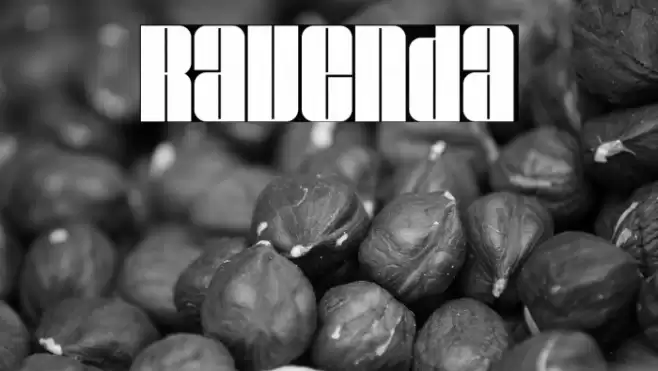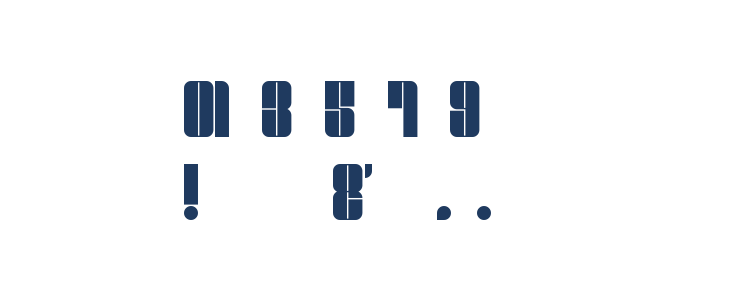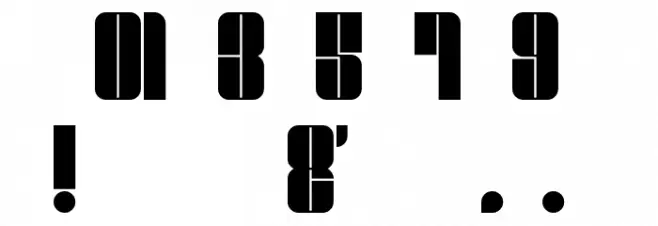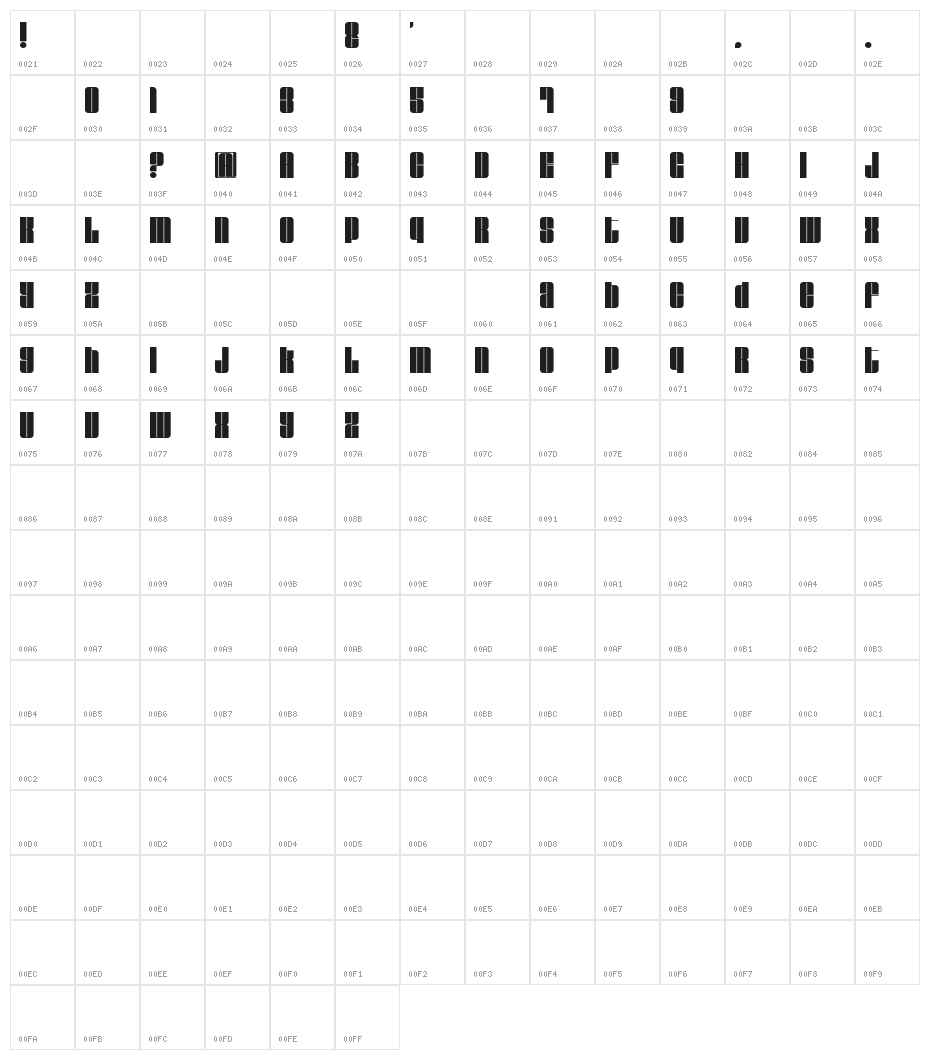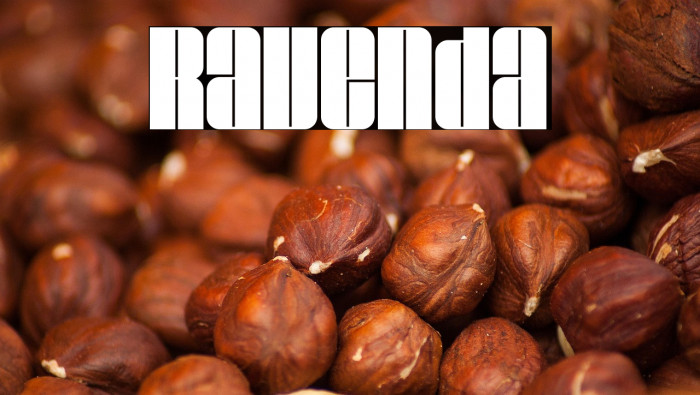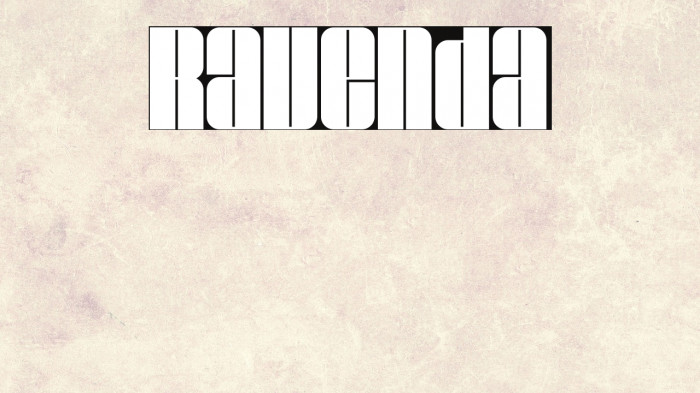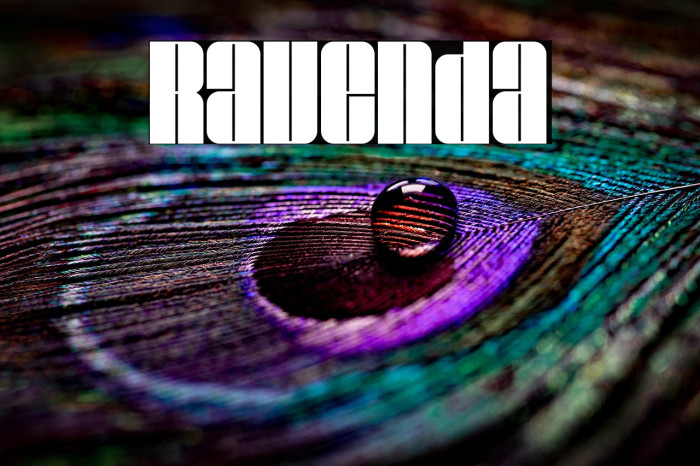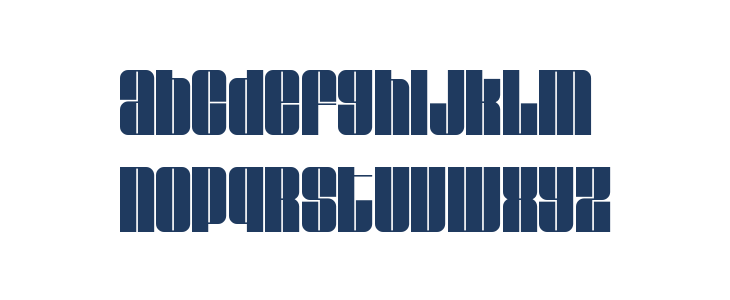
Ravenda Font
Ravenda Description
This font is a bold, geometric display typeface characterized by its blocky and robust letterforms. Each character is constructed with thick, uniform strokes, creating a strong visual impact. The design features a high contrast between the solid black shapes and the negative space, giving it a modern and edgy appearance. The uppercase and lowercase letters maintain a consistent width, contributing to a cohesive and structured look. The numerals and special characters follow the same design principles, ensuring uniformity across all elements. This typeface is ideal for projects that require a bold and attention-grabbing aesthetic.
A bold, geometric display typeface with blocky, high-contrast letterforms from Regular fonts.
- Proposed Projects: Ideal for posters, headlines, branding, and any design requiring a strong visual impact.